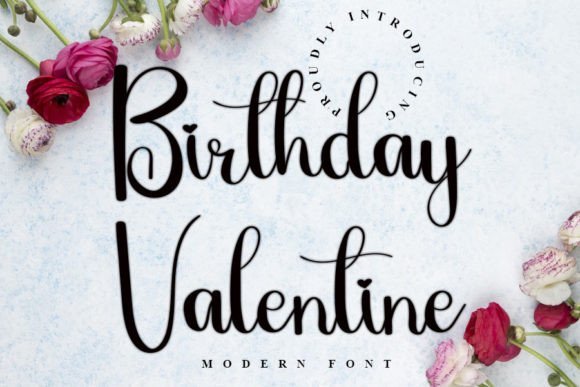
Unleash the Love and Joy with the Birthday Valentine Font
Have you ever stumbled upon a font that instantly sparks creativity and puts a smile on your face? For many designers, the moment they discover a new font is like finding a hidden treasure. It’s that feeling of excitement and possibility that drives us to create something truly special. And for those who are looking for a font that embodies love, joy, and celebration, the Birthday Valentine Font is the perfect find.
This lovely and timeless handwritten font is a designer’s dream come true. With its unique and beautiful touch, it’s the perfect choice for creating eye-catching logos, branding, and quotes. Whether you’re designing a wedding invitation, a birthday card, or a social media post, the Birthday Valentine Font is sure to bring a touch of warmth and personality to your design.
Birthday Valentine Font Key Features
- Font Family: Birthday Valentine Font is a unique, hand-drawn font designed specifically for Valentine’s Day and birthdays.
- Unique Characteristics: The font features intricate, hand-drawn designs, swashes, and flourishes, making it perfect for adding a personal touch to Valentine’s Day and birthday designs.
Birthday Valentine Font Review
I recently had the chance to play around with the Birthday Valentine Font, and I must say it’s a unique and quirky addition to any design project. ✨ The font’s playful, handwritten feel is perfect for creating eye-catching and whimsical graphics, especially for occasions like Valentine’s Day and birthdays.
The font’s versatility shines through in its many uses, including:
- Valentine’s Day cards and gift tags
- Birthday invitations and party decorations
- Wedding stationery and favors
- Quirky quotes and phrases for social media
However, I did encounter some limitations with the font. ⚠️ For one, it can be a bit tricky to read at smaller font sizes, and some letters may blend together. Additionally, the font’s aesthetic may not be to everyone’s taste – some users may find it too cutesy or childish.
Overall, I’d say the Birthday Valentine Font is a great choice for designers who want to add a touch of whimsy and personality to their projects. While it may have its limitations, it’s a fun and versatile font that’s sure to bring a smile to users’ faces.
The Birthday Valentine Font is ideal for creating romantic and festive designs for:
Valentine’s Day cards and invitations
Birthday party invitations and decorations
Wedding stationery and favors
Any design project that requires a playful and whimsical touch